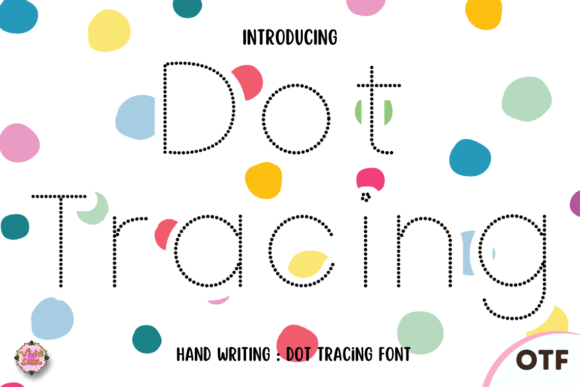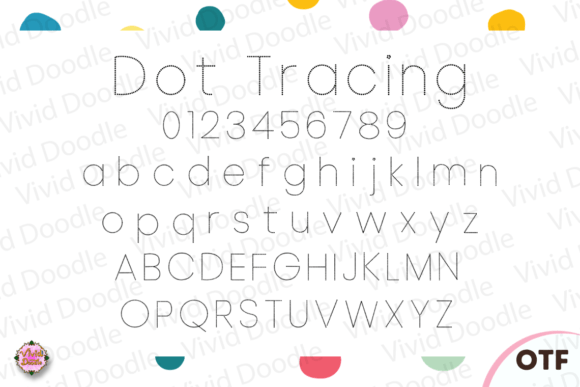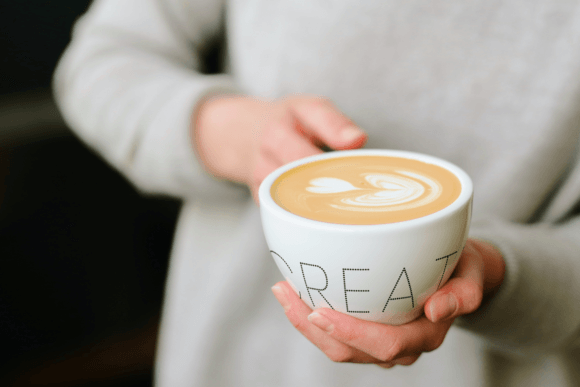
Dot Tracing Font
About the Dot Tracing Font
Experience the unique personality of Dot Tracing Font, a font designed for impact. Ignite inspiration and foster skill development with our dot tracing font—an ideal fusion of creativity, artistry, and learning practice! Tailored for interactive experiences, this font features dotted letter outlines, creating a perfect tool for honing motor skills and reinforcing letter recognition. Elevate your artistic designs and learning materials with this dynamic and engaging font, designed to seamlessly integrate into the realms of creative art and effective learning practice.
Dot Tracing Font’s playful, hand-drawn aesthetic makes it ideal for children’s books, educational materials, and playful branding projects. It works exceptionally well in headlines, short phrases, and logos where its unique character can shine. Avoid using it for large blocks of body text or UI elements; the dotted outlines reduce readability at smaller sizes.
Consider pairing Dot Tracing Font with a clean sans-serif like Open Sans for a balanced contrast, or a more playful script font like Pacifico to amplify its childlike charm. For a more sophisticated feel, a geometric sans-serif such as Futura might create an interesting juxtaposition.
Its overall personality is undeniably playful and approachable, lending itself well to projects targeting a younger audience or those needing a friendly, engaging visual style.
Dot Tracing Font Usage Examples
Dot Tracing Font Example